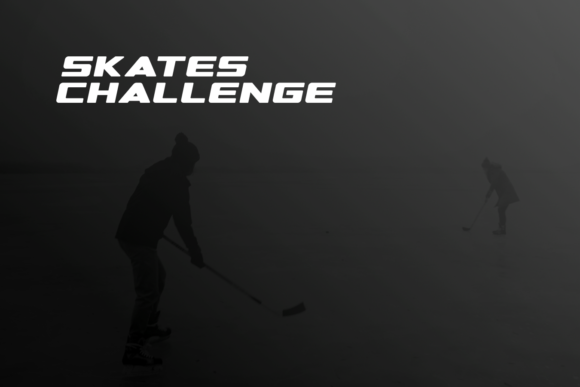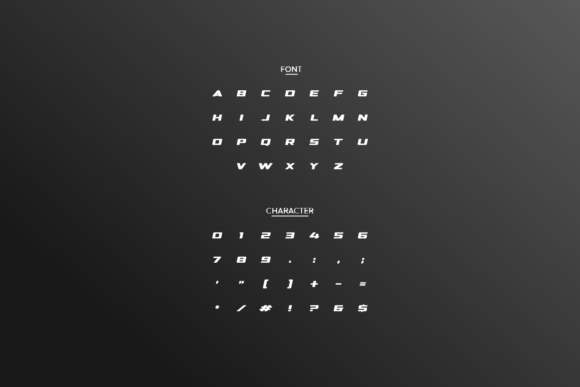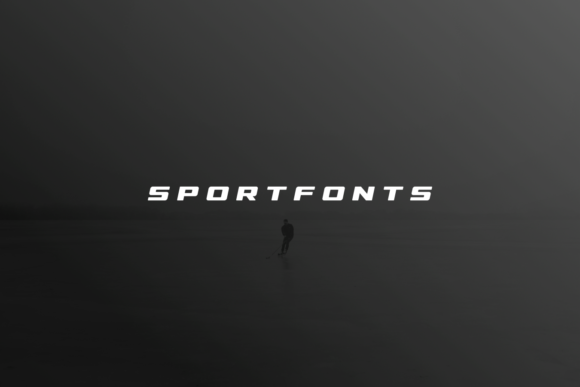
Introduction to Ricsucer Font
Ricsucer is a cool and bold display font.
| 👤 Author | Letterna |
It is perfect for product packaging, branding project, magazine covers, social media, wedding, or just used to express words above the background .
Key Features of Ricsucer Font
Why Choose Ricsucer Font?